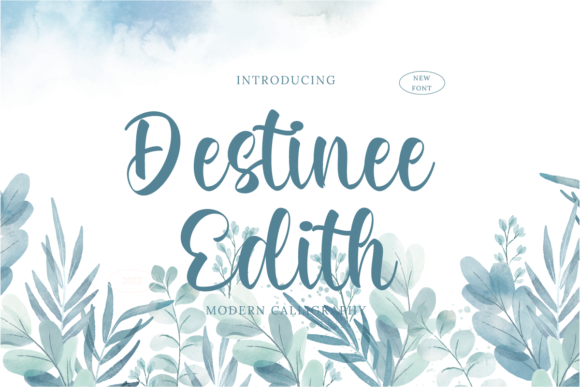
Step into a world of enchantment with Destinee Script, a handwritten font of unparalleled grace and allure. Its every character exudes a charm so potent, it dances across your designs with the elegance of a seasoned performer. Whether it's a wedding invitation, love letter, or branding project, Destinee Script is the muse you need to craft visual poetry.
Indulge in the beauty of its flowing strokes, each meticulously crafted to capture the essence of romance and timeless charm. Destinee Script is a testament to the power of typography, transforming ordinary words into works of art. With every curve and swirl, it paints a picture of love and longing, perfect for capturing hearts and creating memories that last forever.
Unlike ordinary fonts, Destinee Script doesn't just convey words; it evokes emotions, setting the stage for heartfelt connections and leaving an everlasting impression. It's the perfect choice for wedding invitations, where every detail whispers elegance and romance. Let Destinee Script be the eloquent narrator of your love story, guiding your guests on a journey of enchantment and joy.
So, embrace the magic of Destinee Script and watch your creative visions take flight. Immerse yourself in its charm, and let your designs bloom with love and beauty. Destinee Script is not just a font; it's a gateway to a world where words dance with grace and elegance. Step into this world today and let your creativity blossom.